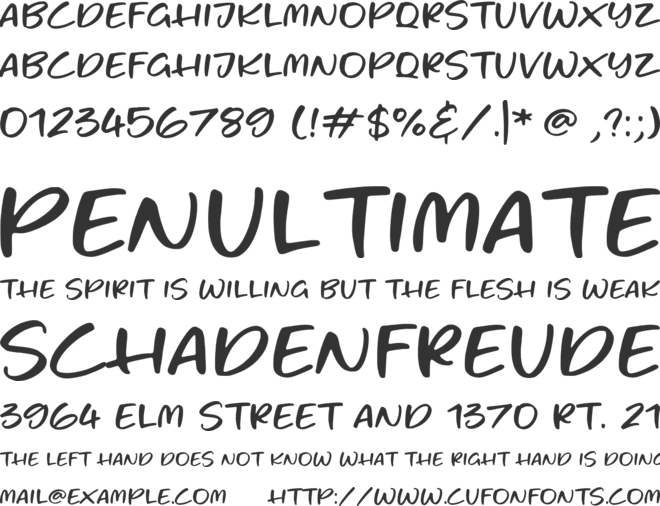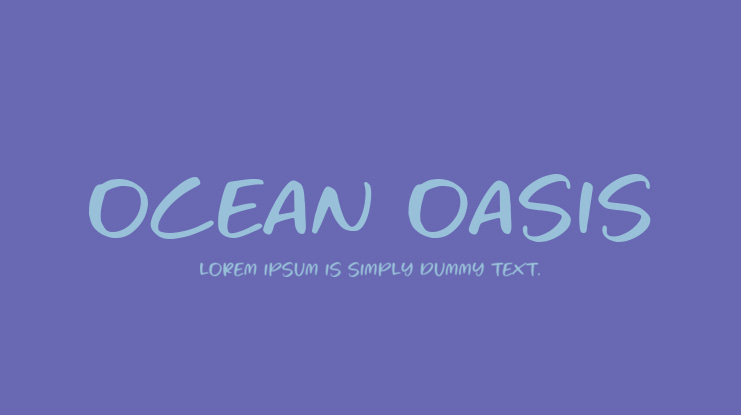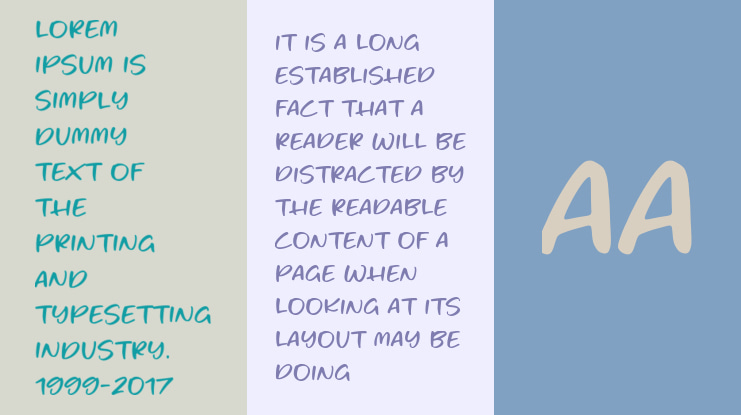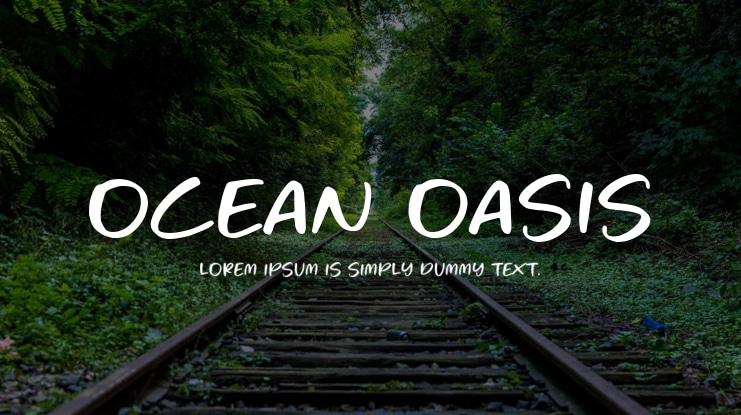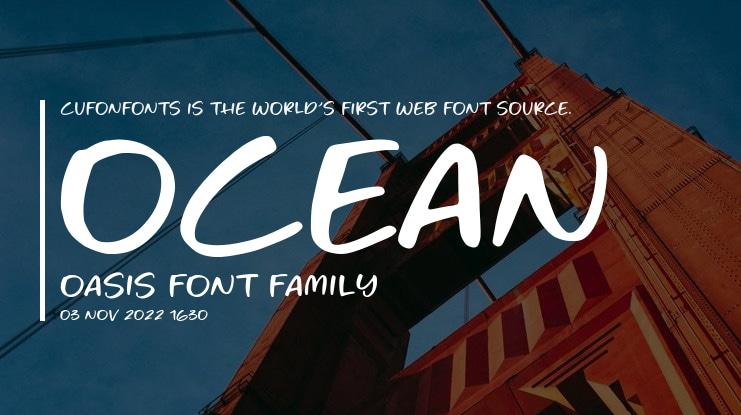
Ocean Oasis Font
Ocean Oasis is a Handwritten Font.
Our handwritten font takes inspiration from the fluidity and uniqueness of human handwriting, ensuring that each letter carries a sense of character and charm. With its graceful curves and delicate strokes, this font adds an intimate and personal feel to your written words.
Perfect for creating notes, memos, journal entries, or beautiful quote designs, our handwritten font elevates your messages with a sense of authenticity and warmth. It transforms your ordinary words into a beautiful composition, breathing life into your writing.
This font only has allcaps letters.